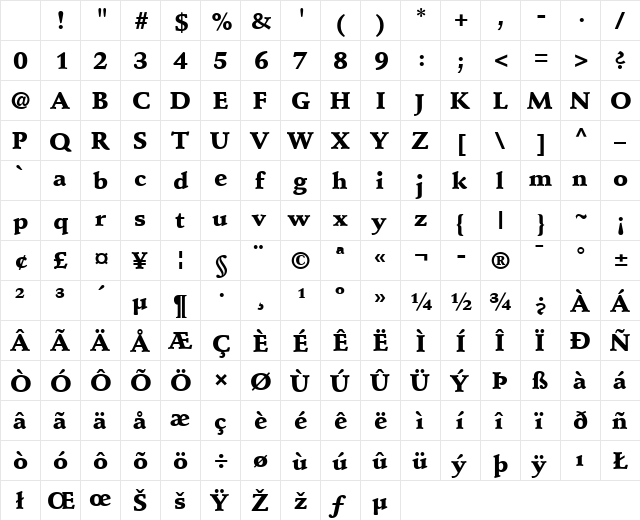
StempelSchneidler LT Medium Bold
StempelSchneidler LT Medium Family
Design Context for StempelSchneidler LT Medium
StempelSchneidler LT Medium is a composed and adaptable typeface that performs quietly and consistently across a wide range of design contexts. Its bold stroke weight gives it real presence on the page.